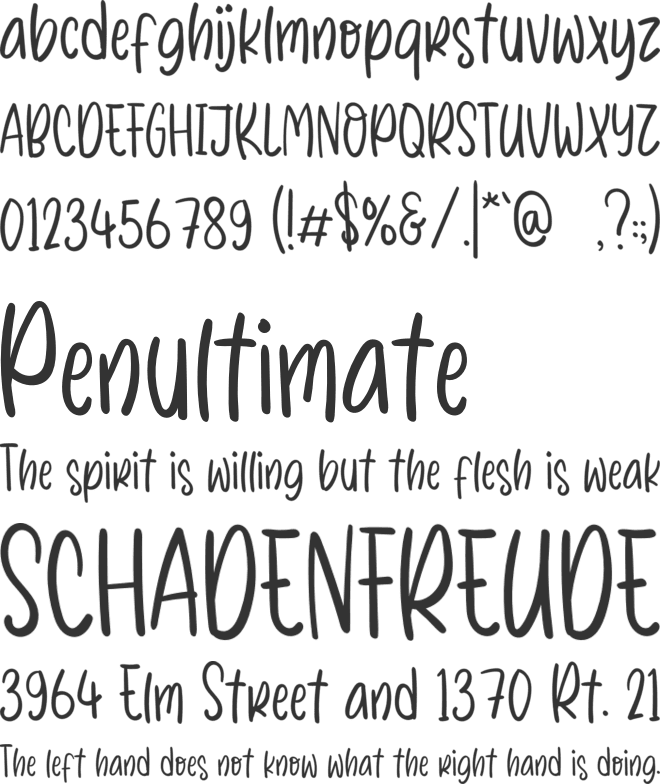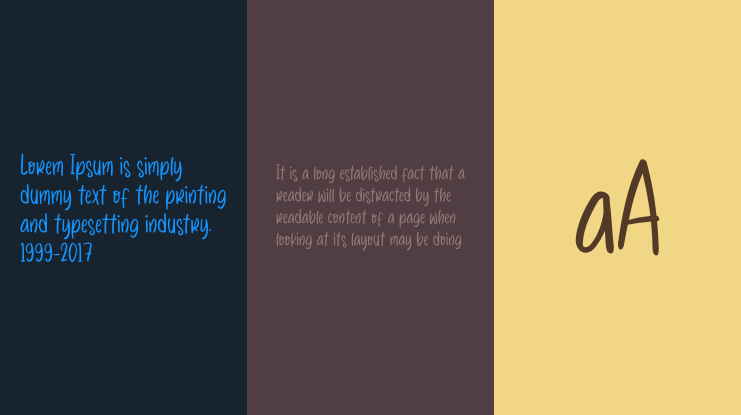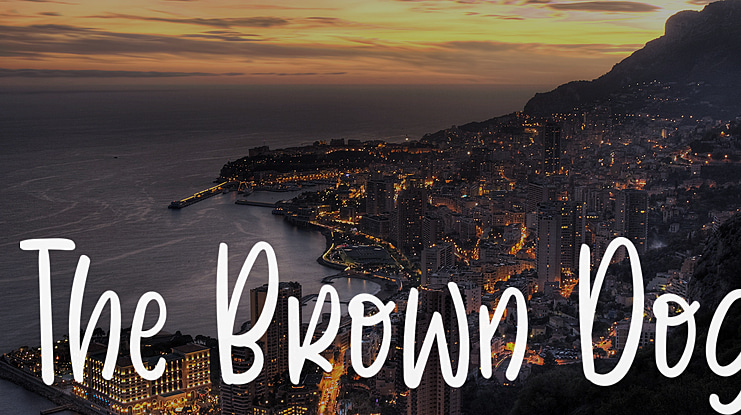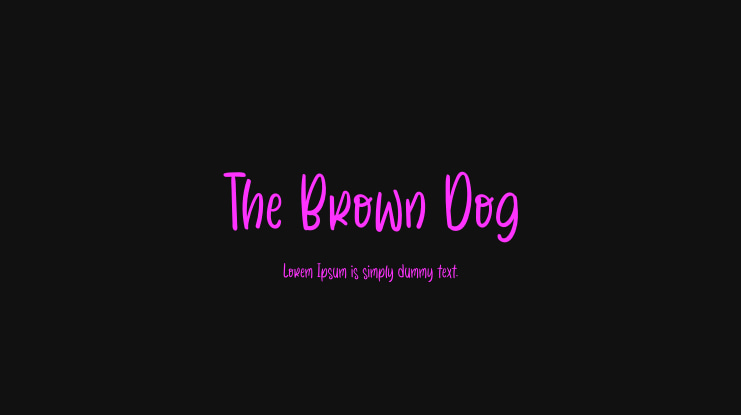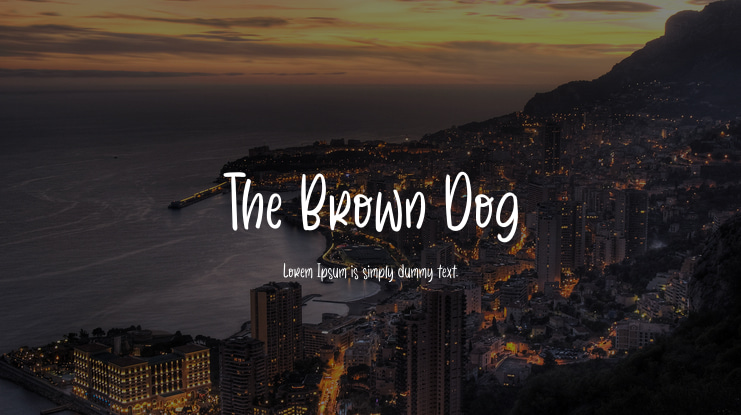
The Brown Dog Font
The Brown Dog is a fun and playful handwritten font. Clean and a little bit quirky, this font is the perfect fit for all of your logos, branding, social media, and crafty DIY projects.